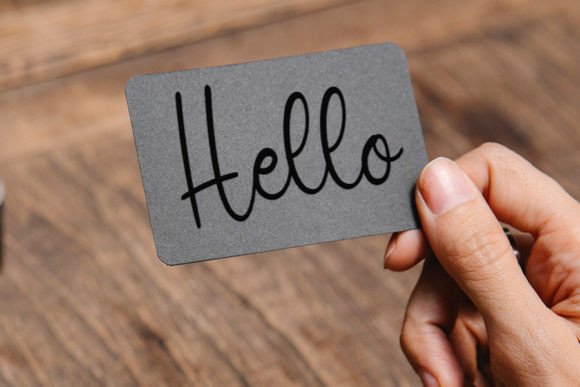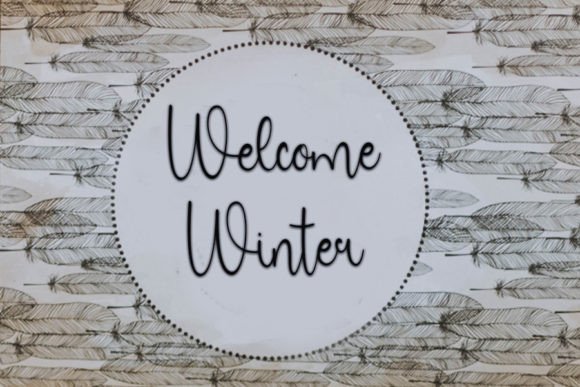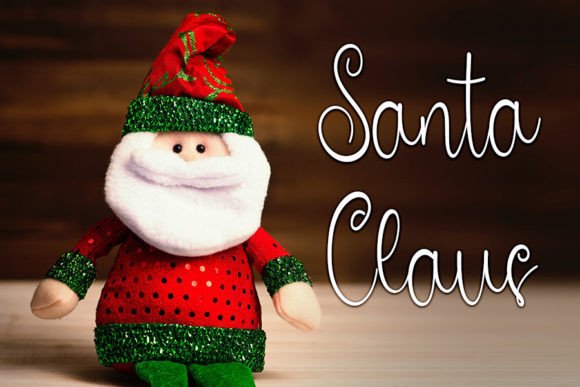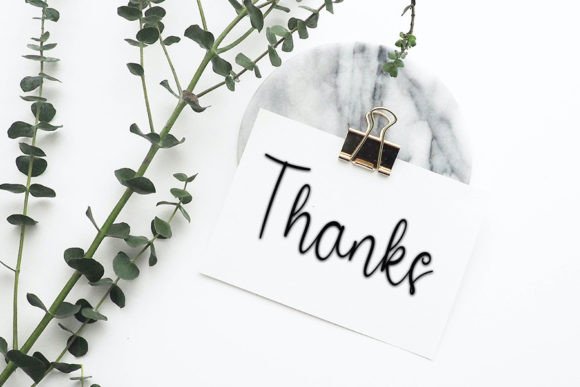
Stylish Signature Font
Stylish Signature Handwritten Font – Elegant and Timeless Typeface
The Stylish Signature Handwritten Font is a refined script typeface designed to add sophistication and charm to any project. With its neat strokes and elegant handwritten flow, it offers both beauty and versatility. Whether you’re working on branding, invitations, or posters, this font ensures your designs capture attention with grace.
A Script with Timeless Elegance
The Stylish Signature Handwritten Font blends clean handwritten curves with stylish details. Its balanced structure makes it highly readable, while its handwritten charm ensures every project feels personal. Because of this, it is suitable for both professional and personal design needs.
Perfect for Invitations and Branding
One of the most popular uses of the Stylish Signature Handwritten Font is in invitations and branding. Wedding stationery, thank-you cards, and personal notes shine with its romantic strokes. At the same time, it works perfectly for logos, business cards, and posters, adding a professional yet creative handwritten touch.
The Stylish Signature Handwritten Font adapts seamlessly to various design contexts. From product packaging and event signage to digital graphics and social media posts, it provides an elegant handwritten style that is both trendy and timeless. Its adaptability makes it a favorite for diverse creative projects.
Why Designers Love Stylish Signature Font
Designers love the Stylish Signature HandwrittenFont because it combines elegance with usability. Its refined strokes make it ideal for formal projects, while its handwritten character ensures it remains approachable. This perfect blend makes it an essential font in any creative collection.
In summary, the Stylish Signature HandwrittenFont is an elegant, neat, and versatile script typeface. With its timeless handwritten flow, quick installation, and wide usability, it is perfect for invitations, branding, logos, and greeting cards. Don’t miss the chance to download Stylish Signature HandwrittenFont and bring timeless elegance to your next design.